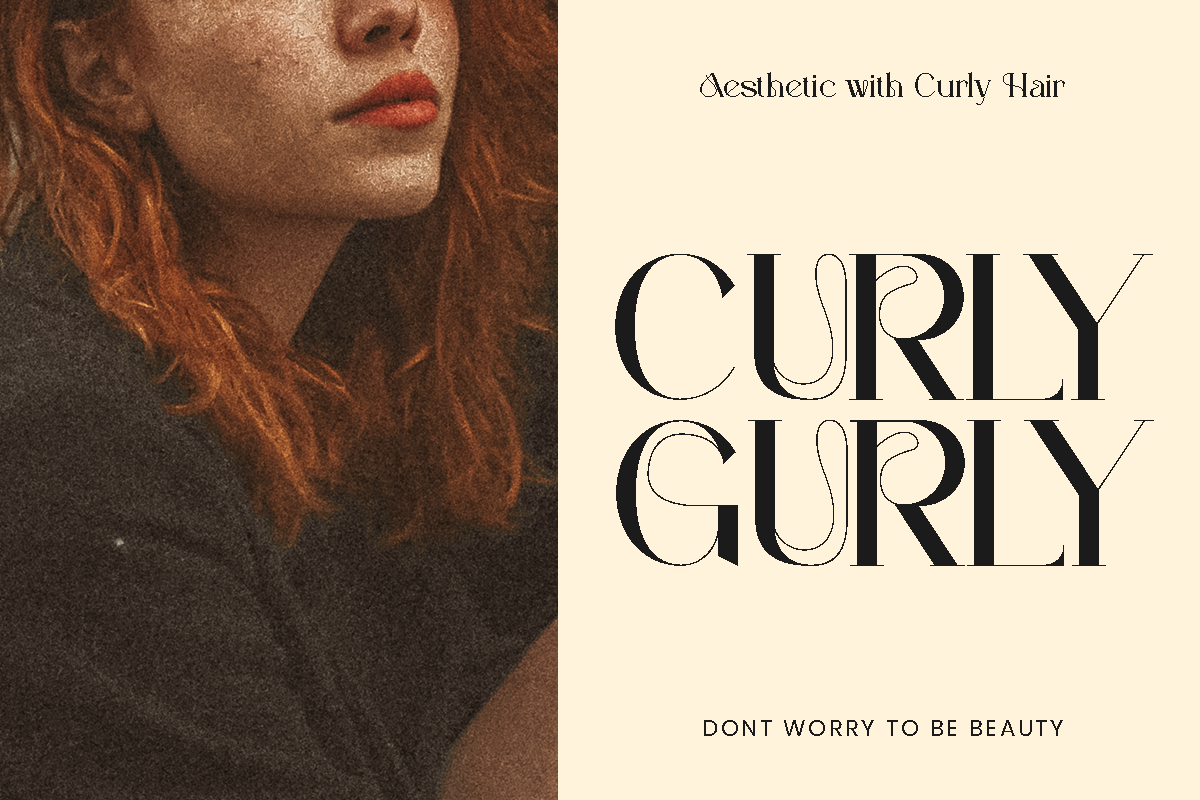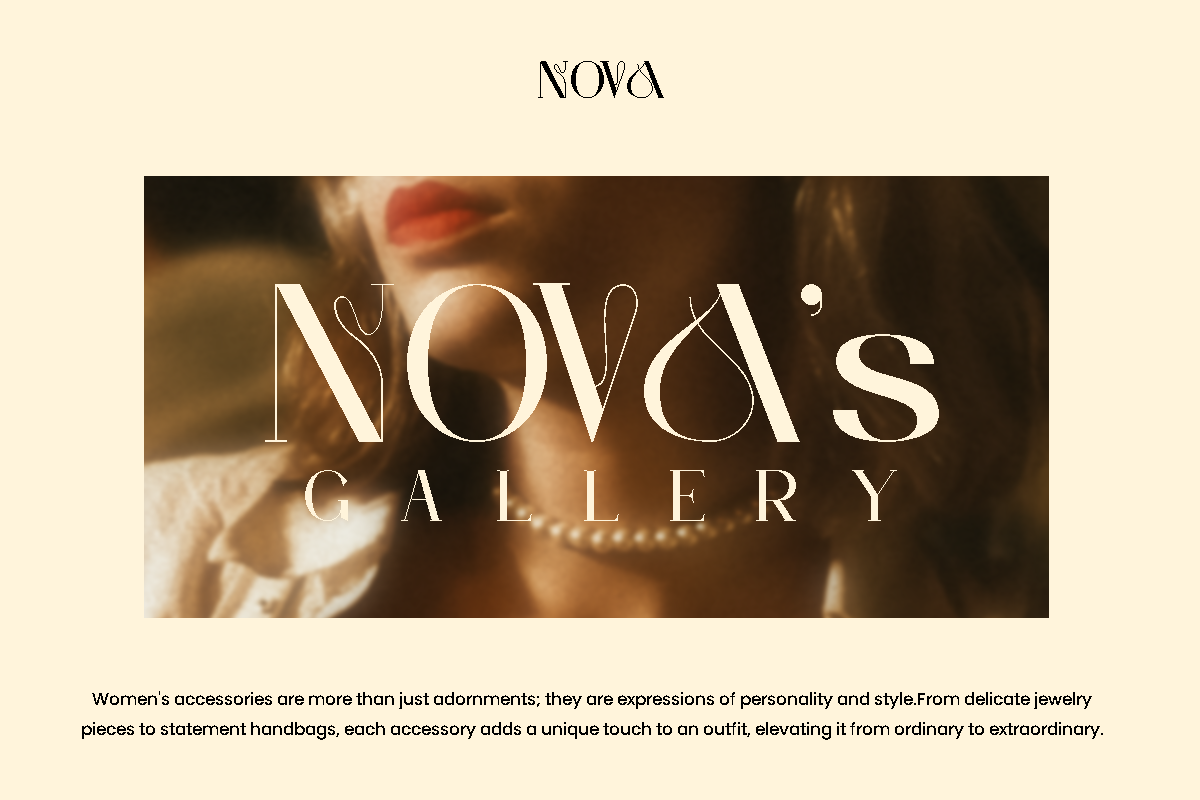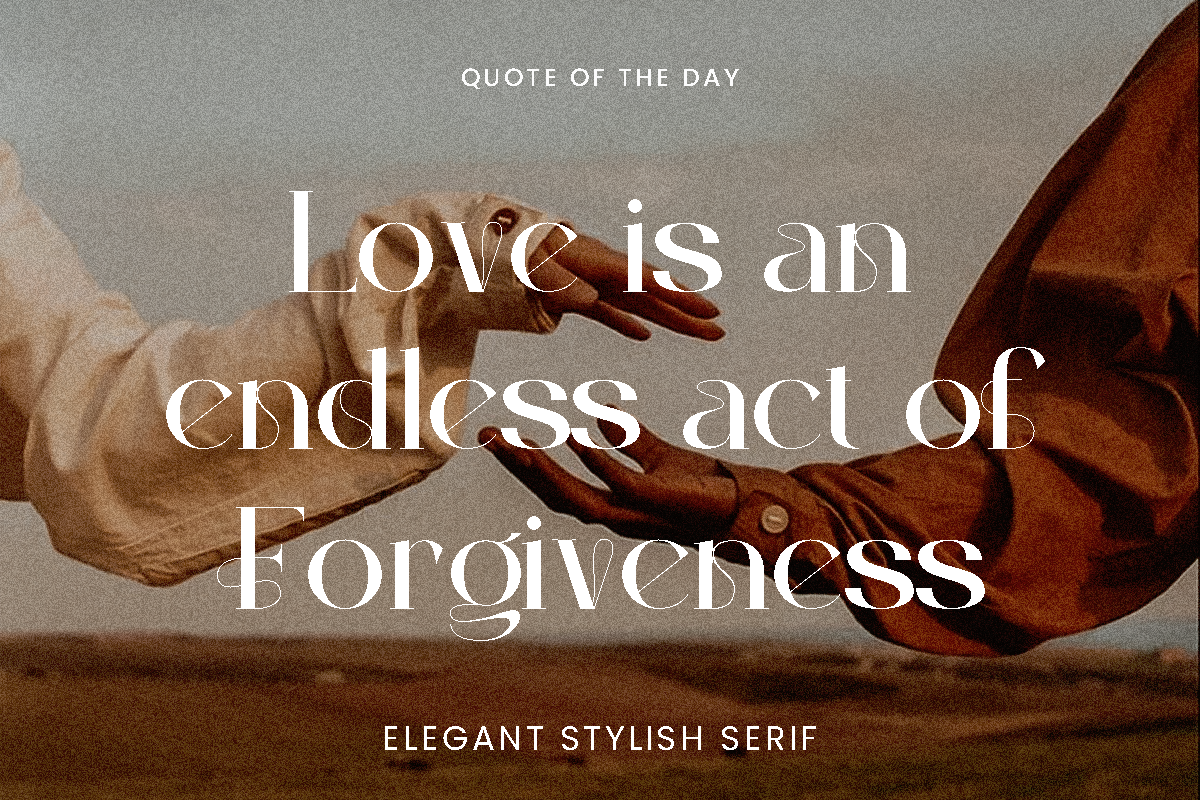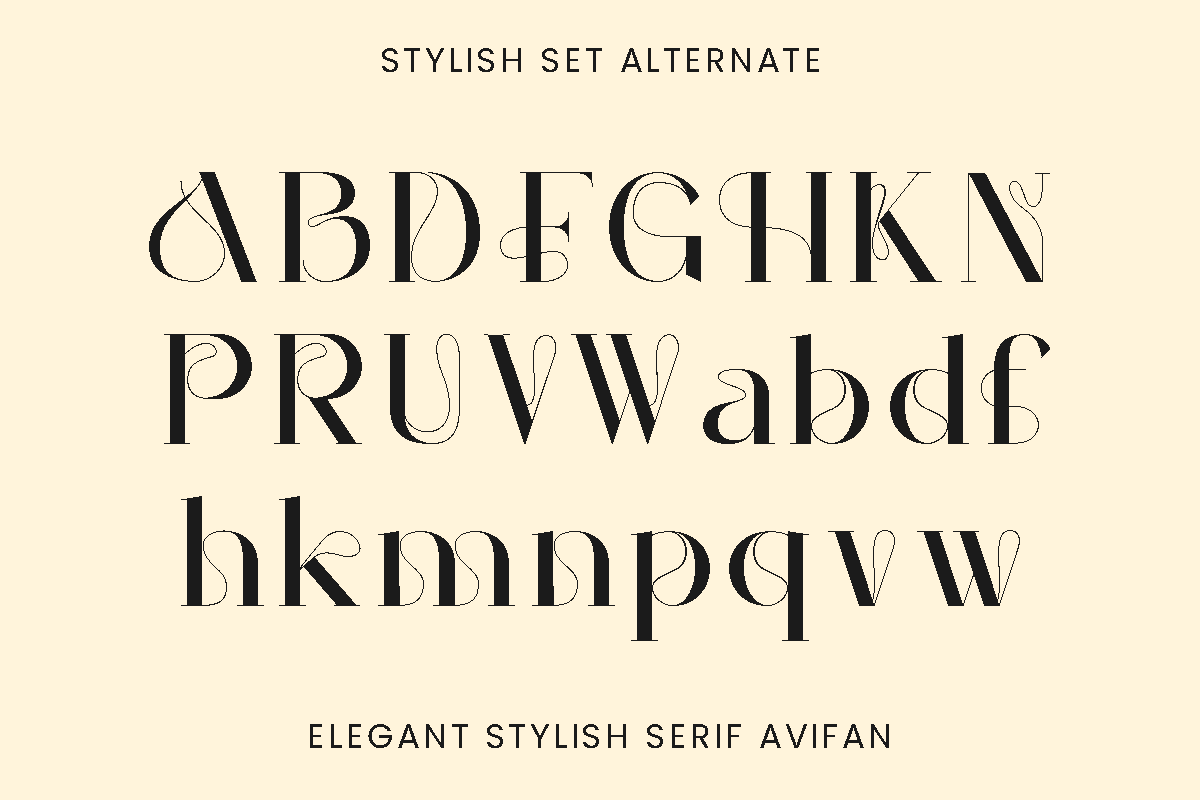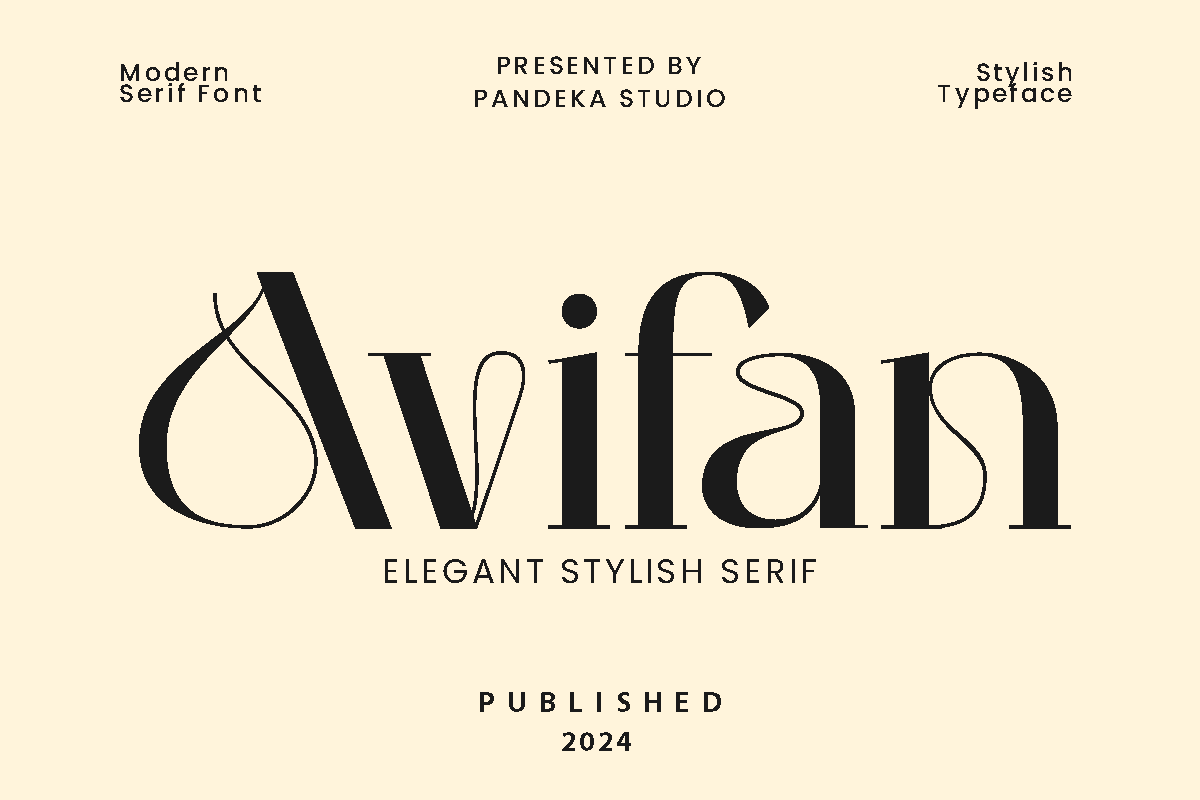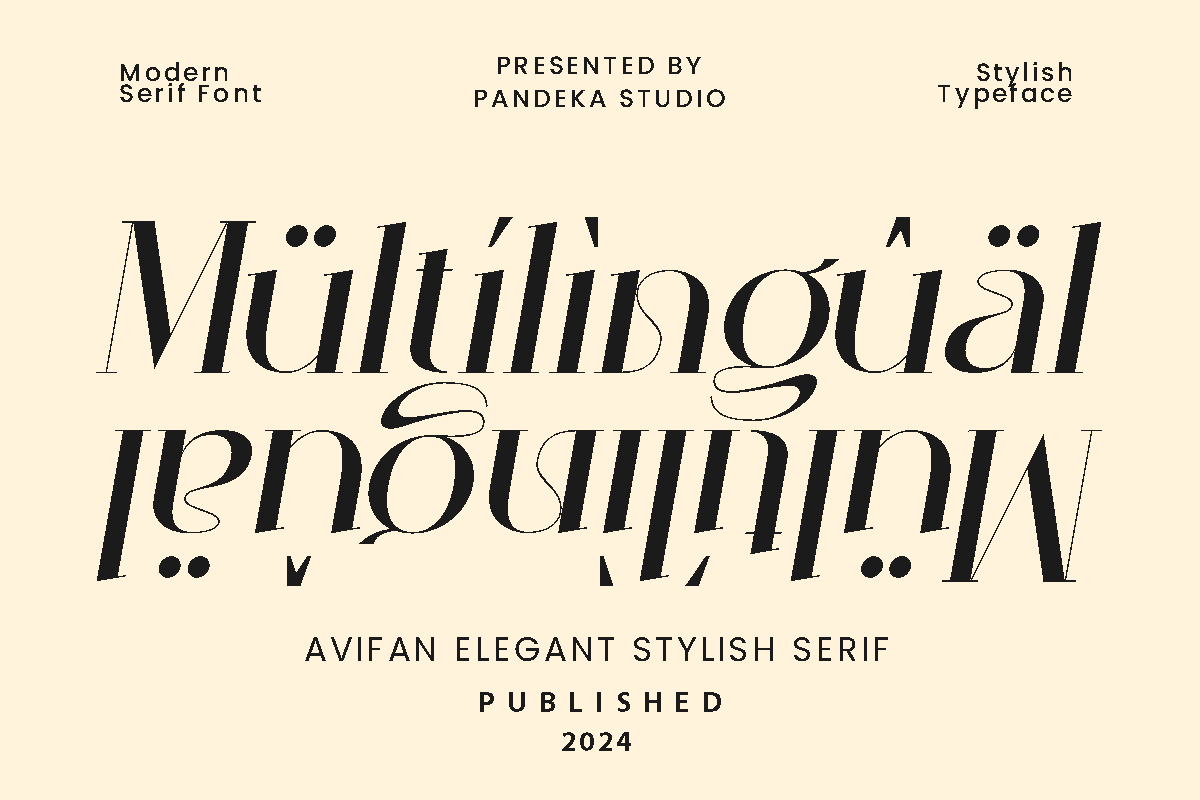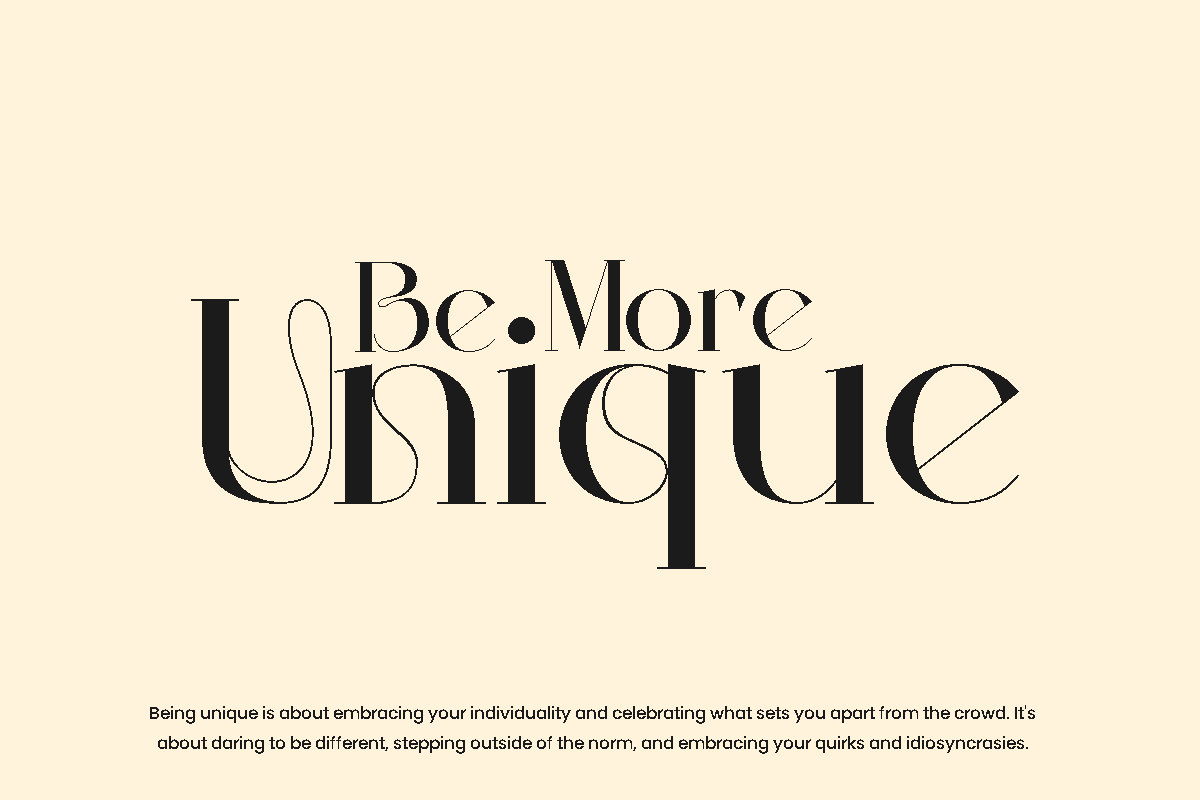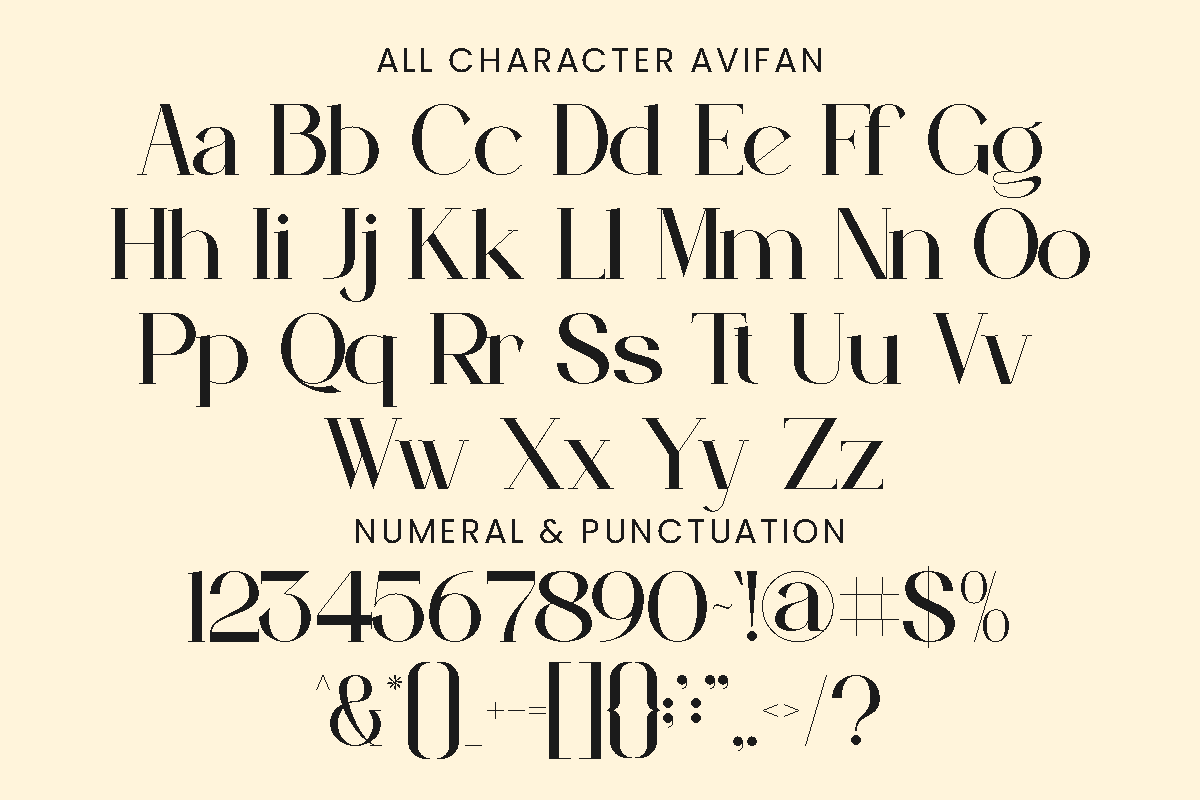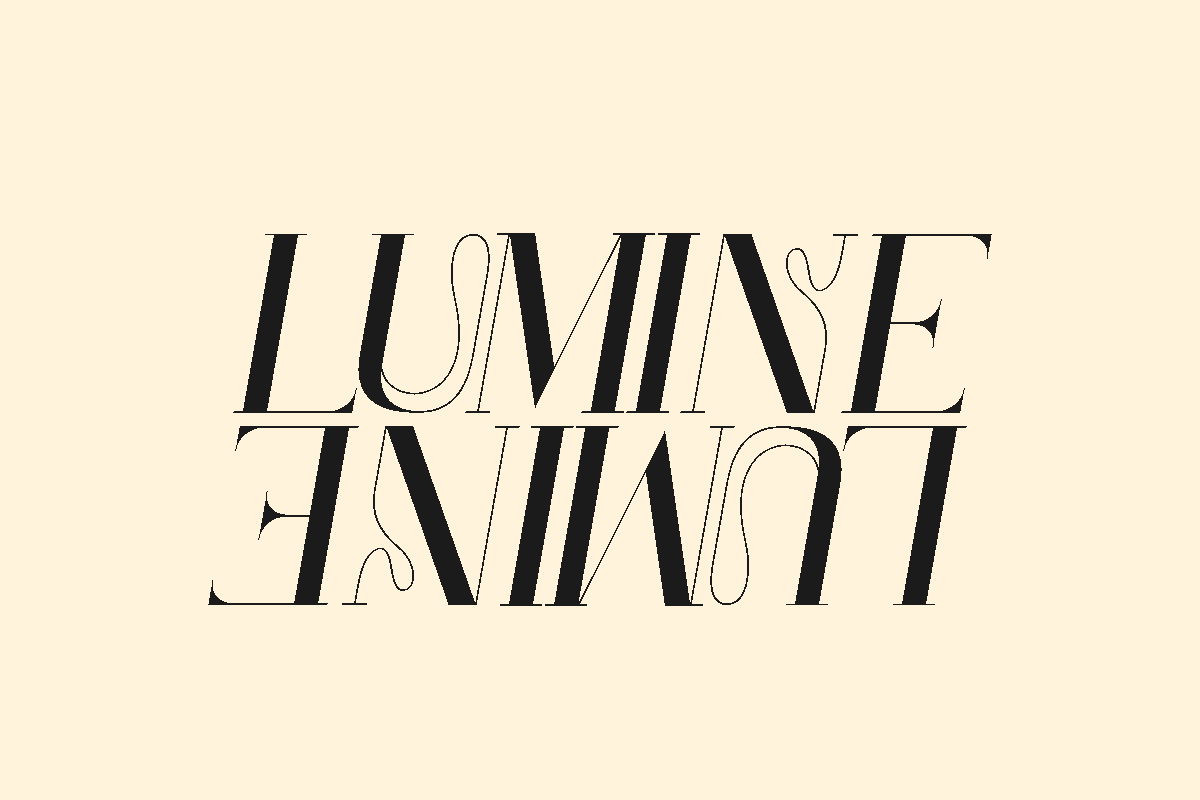
Avifan - Elegant Serif Font
Introducing the new Avifan Modern Ligature Serif!
Avifan is a modern, elegant and classy serif typeface, best used as a display for headings, logos, branding, magazines, product packaging and invitations. Avifan come with clean lines and smooth curves give any project an extra touch of class.
Avifan was built with OpenType features and includes ligatures, alternate, numbers, punctuation, and it also supports other languages.
- Unique Stylistic Alternates